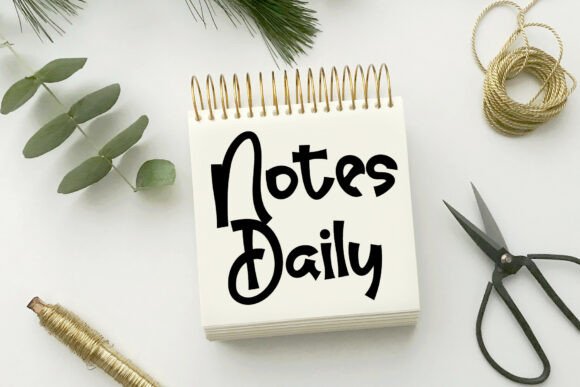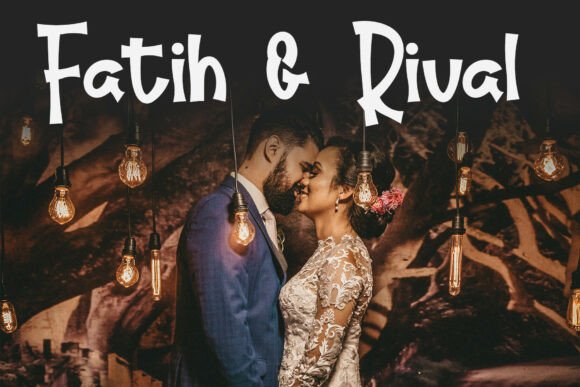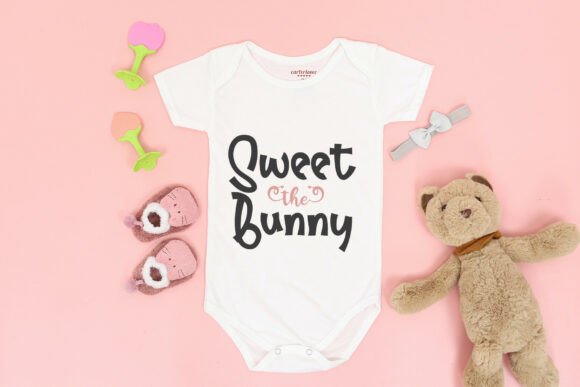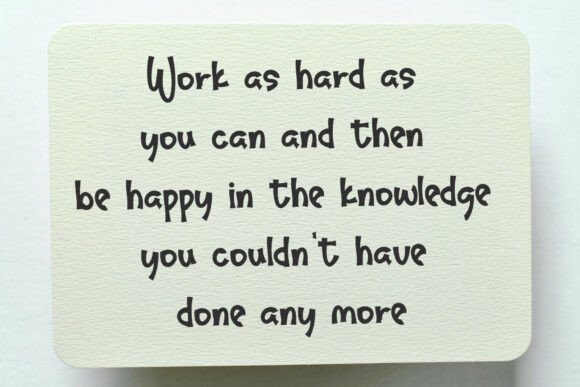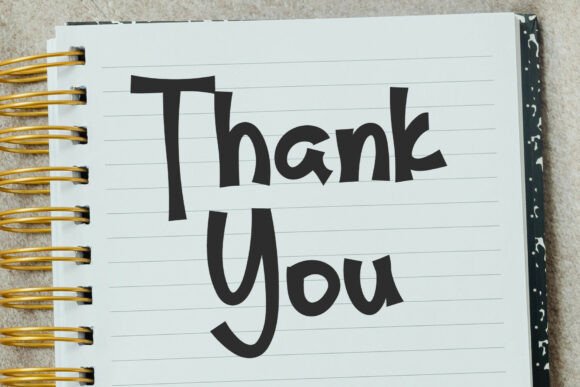
The Delight Alphabet Font: A Magical Addition to Your Design Arsenal
I still remember the frustration of working on a project, hours pouring over design concepts, and yet, something felt off. The piece just wasn’t coming together as I envisioned. And then it hit me – the font. It was all about the font. I was using something generic, something that didn’t quite capture the essence of my design. That’s when I stumbled upon the Delight Alphabet Font, and let me tell you, it was a game-changer. 💫
A Personal Review: What I Love and What to Watch Out For
- ✅ Unique letterforms that add a touch of mystery and elegance to any project
- ✅ Perfect for bold and eye-catching designs, with a strength that commands attention
- ✅ Highly versatile, suitable for mystical, modern, or elegant looks
- ✅ The font’s charm adds a sense of wonder and sophistication to designs
- ⚠️ Some users might find the font’s uniqueness challenging to pair with other fonts
- ⚠️ Limited availability of certain characters or glyphs, depending on the platform
The Story Behind Delight Alphabet Font: A Designer’s Inspiration
Delight Alphabet Font was born out of a designer’s desire to create a typeface that captures the essence of wonder and mystery. Inspired by ancient manuscripts and modern calligraphy, the font blends traditional elegance with contemporary flair. The designer aimed to craft a font that not only stands out but also invites the reader into a world of enchantment and sophistication.
| Author | YanStudio |
Q: Is Delight Alphabet Font suitable for body text?
A: While Delight Alphabet Font is primarily designed for display purposes, it can be used for short paragraphs of body text. However, for longer texts, a more readable font might be preferable.
Q: Does Delight Alphabet Font include OpenType features?
A: Yes, Delight Alphabet Font comes with a range of OpenType features, including stylistic alternates and glyphs, which can be accessed in compatible software.